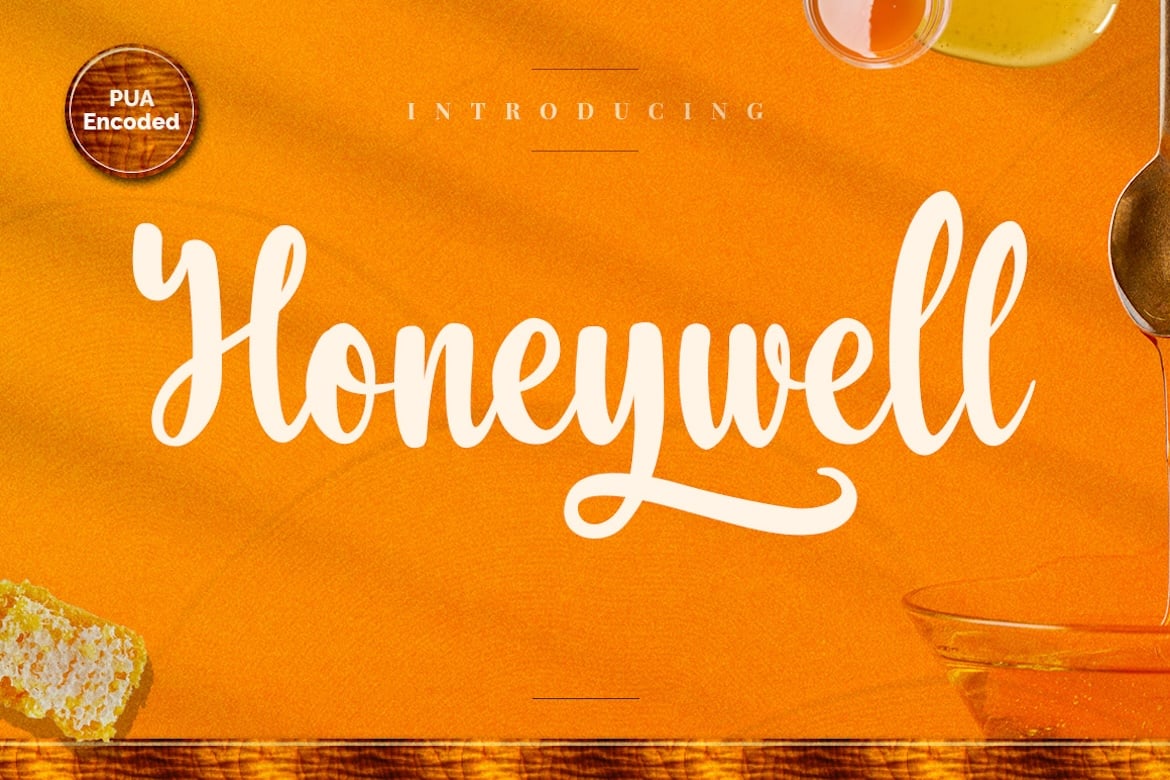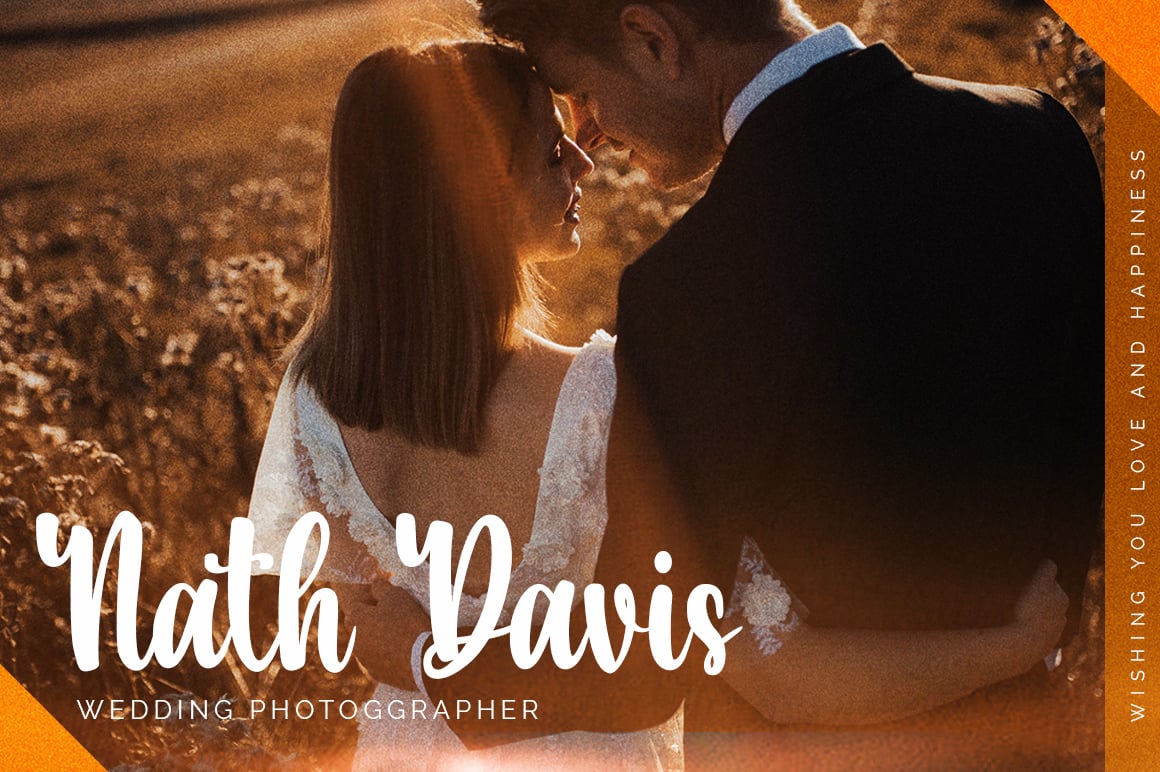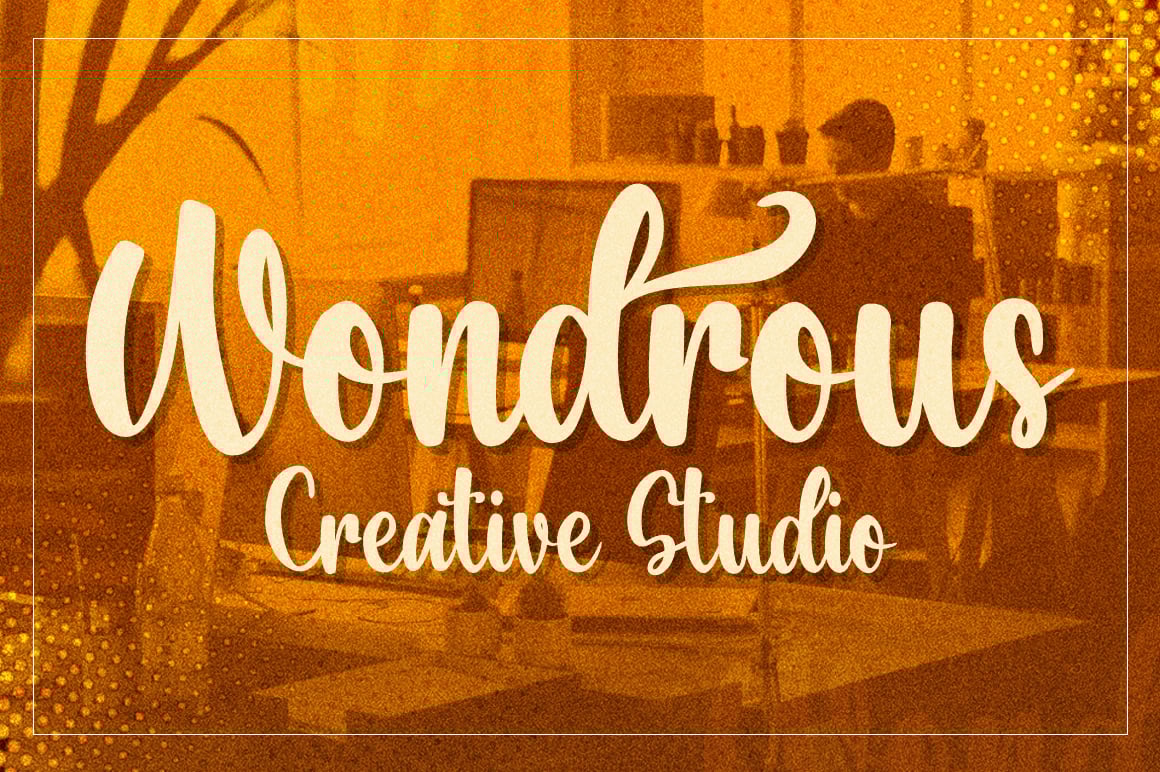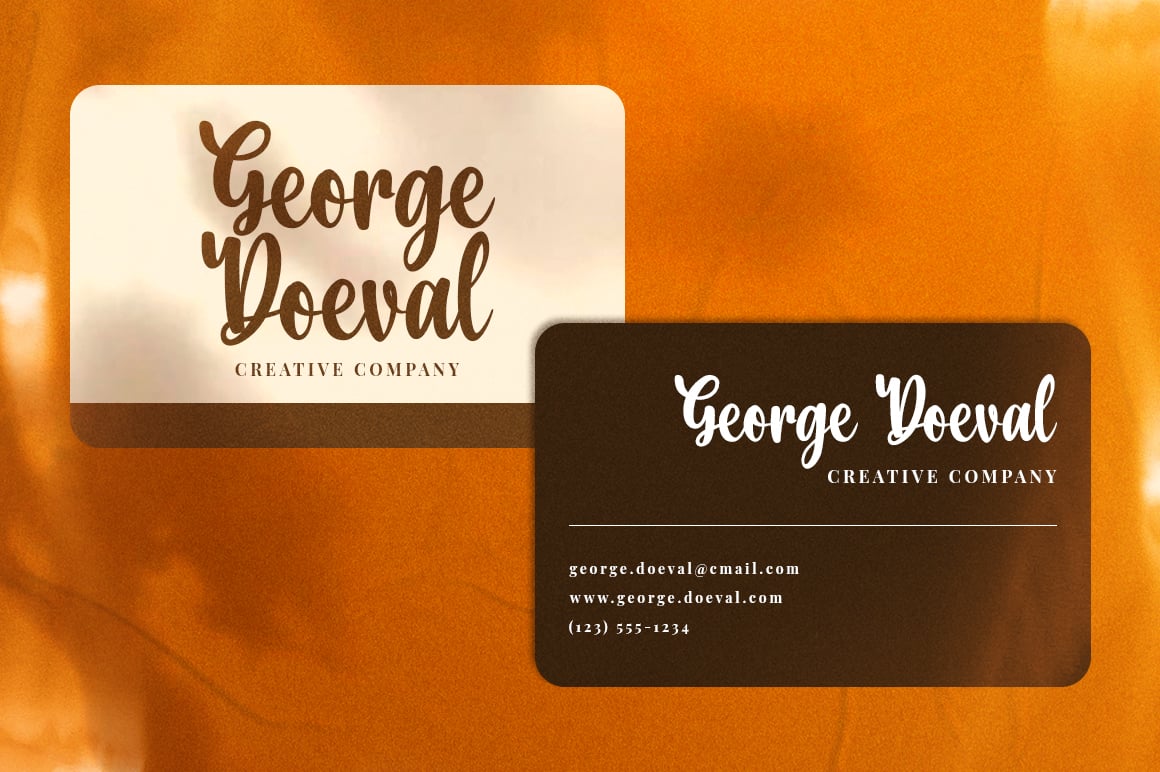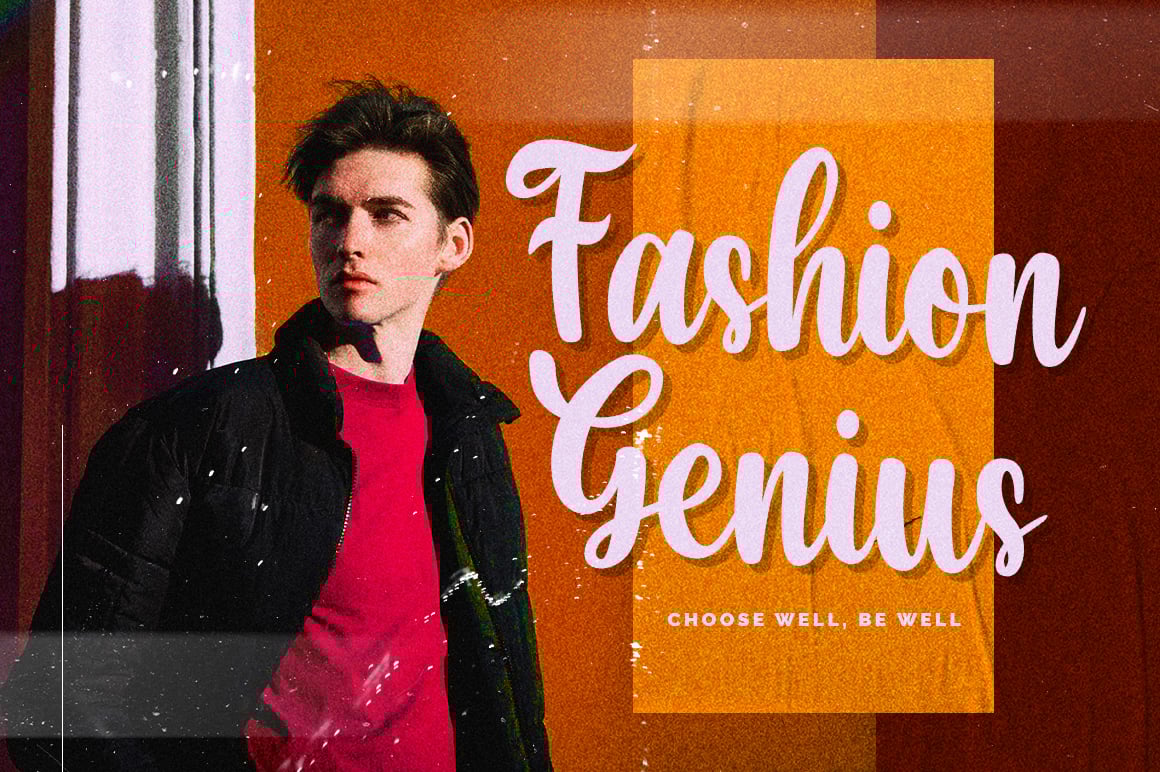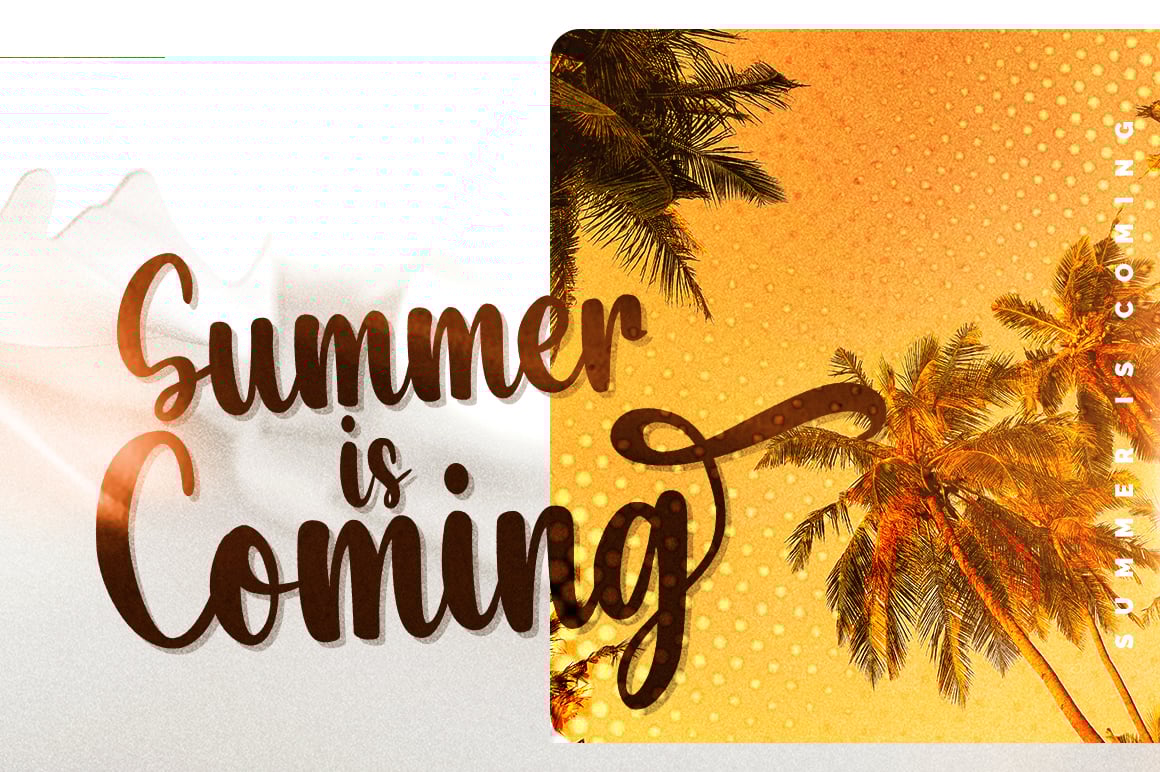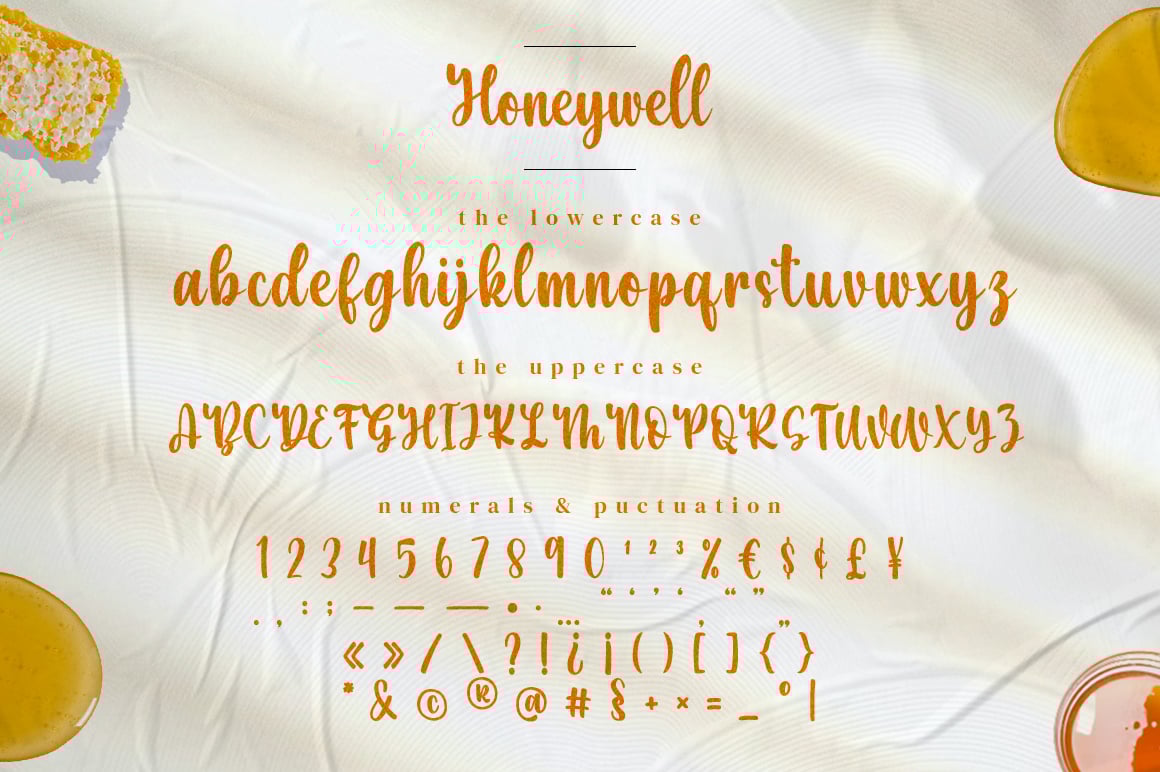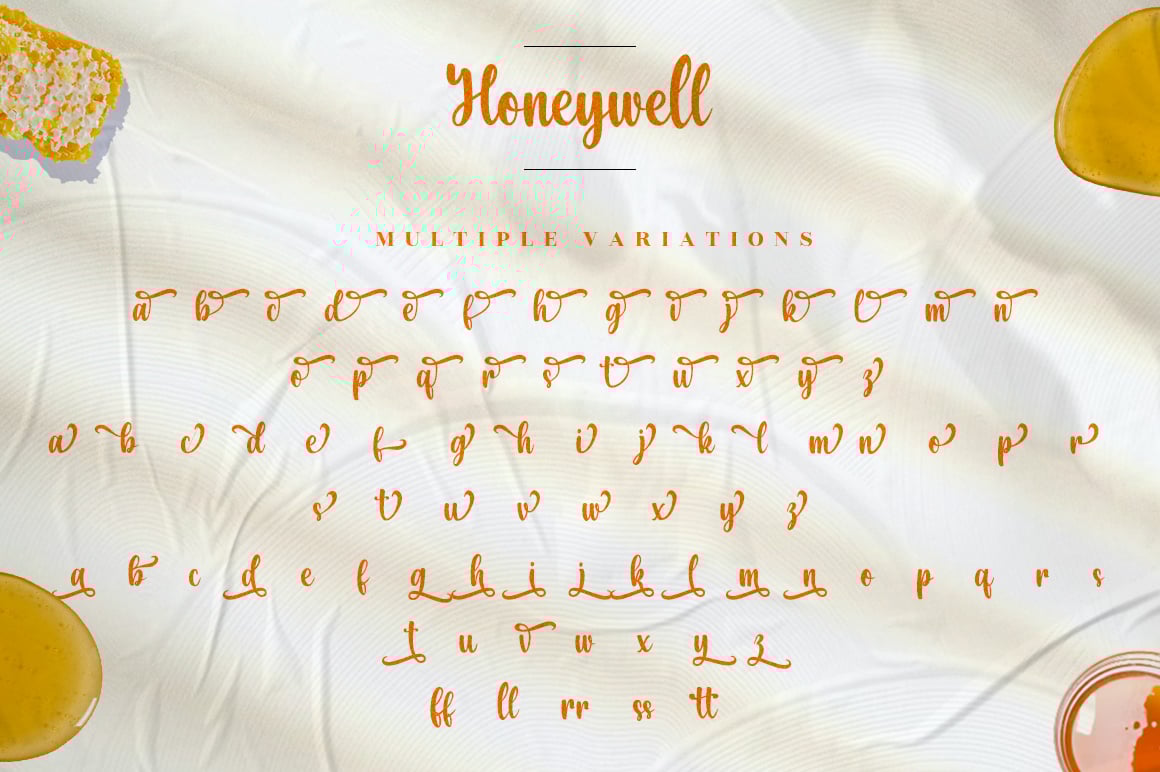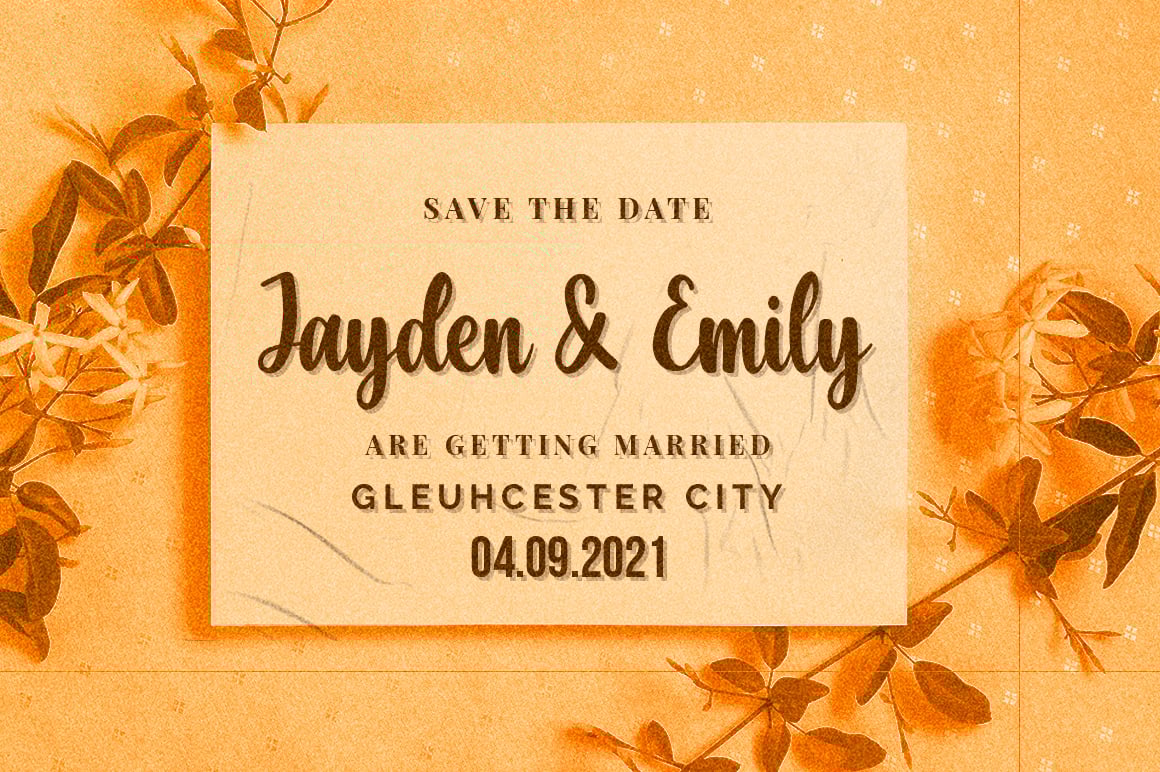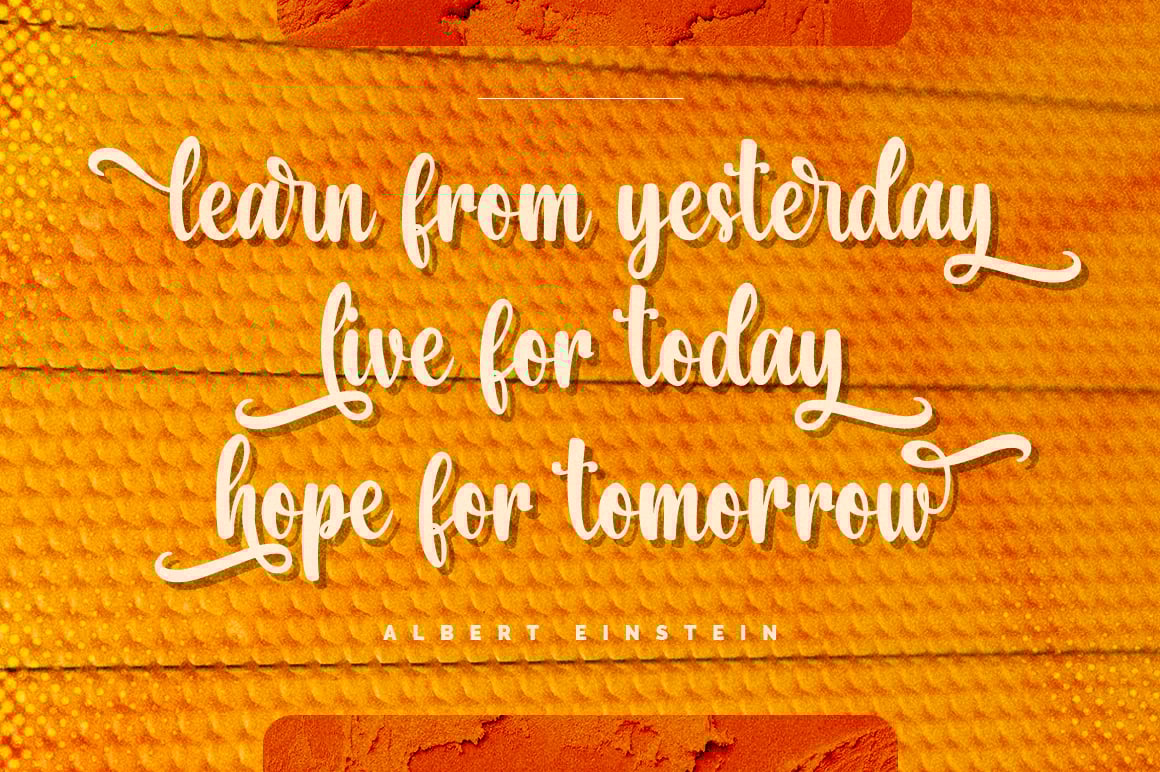
Honeywell – Modern Calligraphy Font
Honeywell Modern Calligraphy Font
Introducing Honeywell Modern Calligraphy Font with tons of alternate characters and OpenType features. This font perfects to use for any kind of design such as branding projects, logo, brochures, business cards, wedding designs, social media posts, advertisements, product packaging, product designs, label, photography, watermark, invitation, brand company, stationery, any design project.
Specific OpenType features include stylistic alternates, optional final forms, multiple alternate glyphs for many letters (accessed through the glyphs panel), multilingual support (including multiple currency symbols), and ligatures.